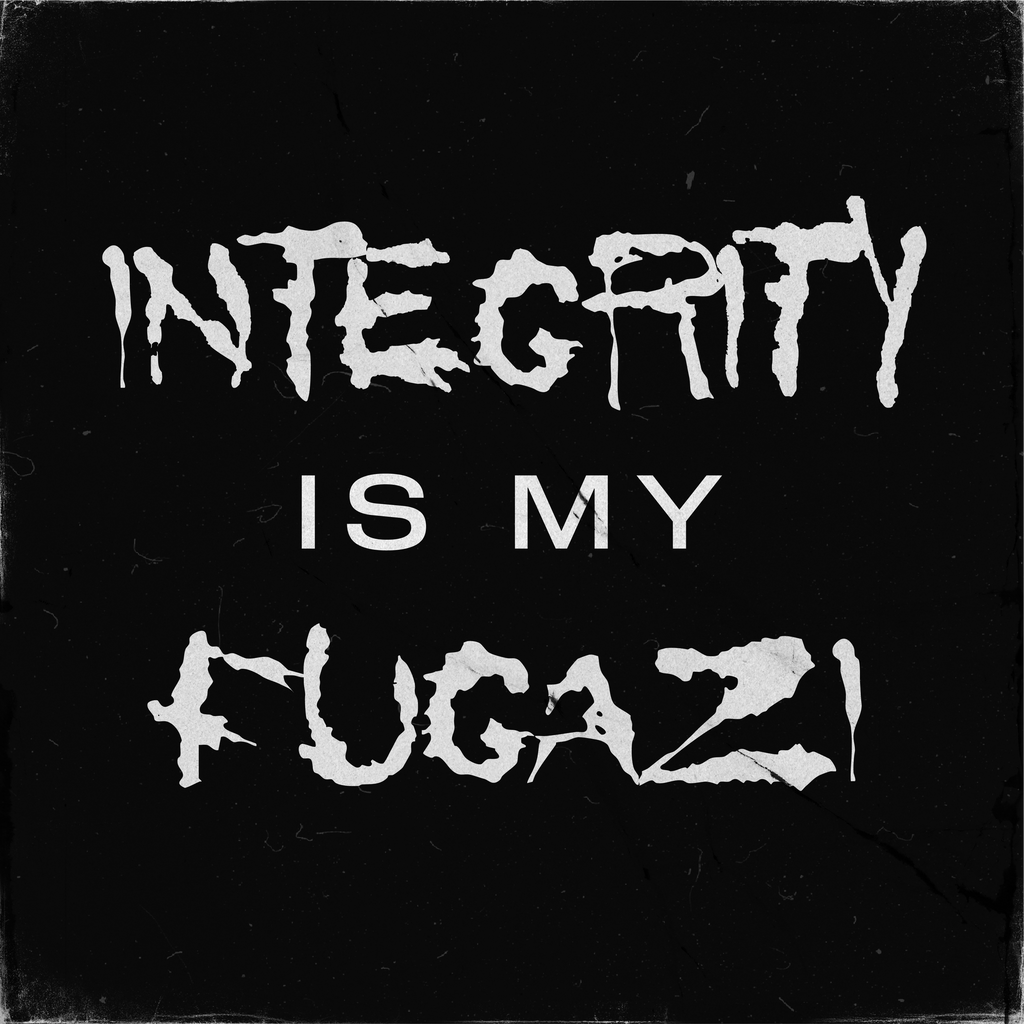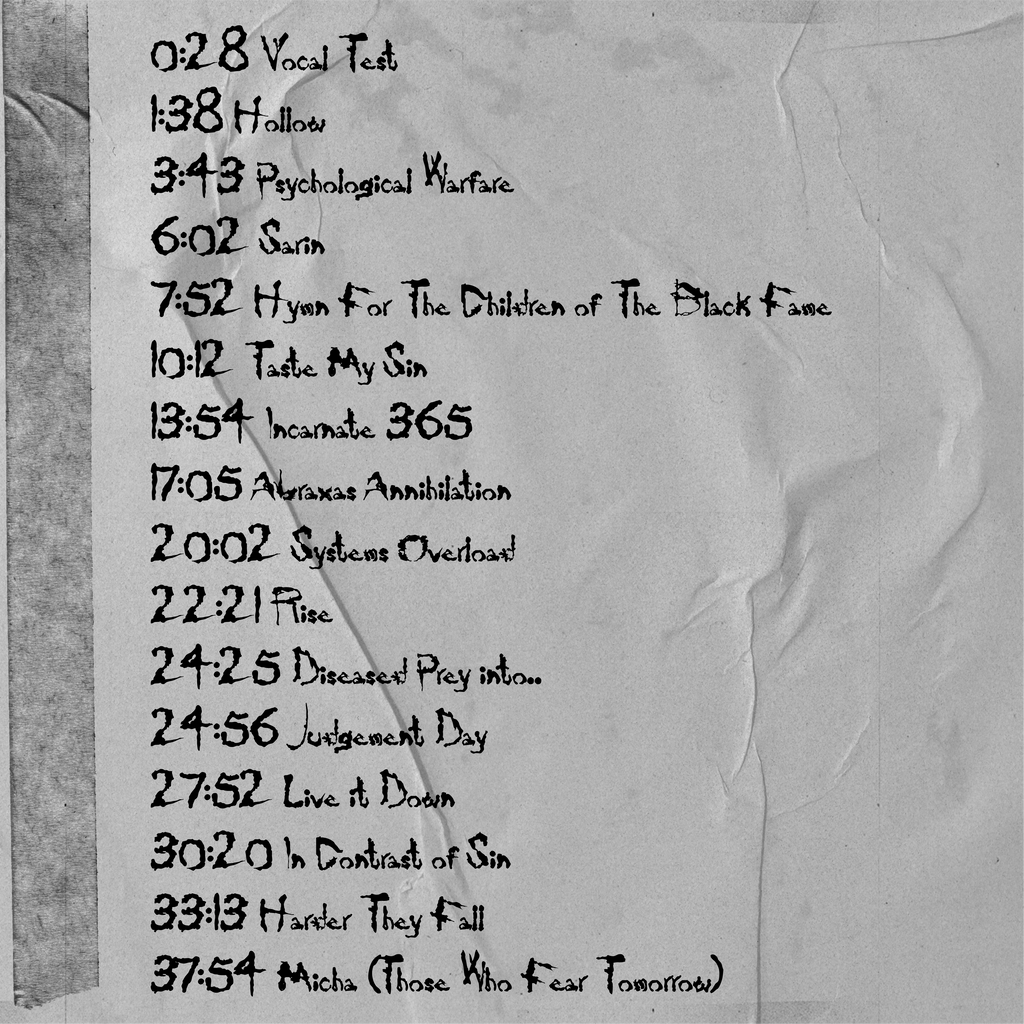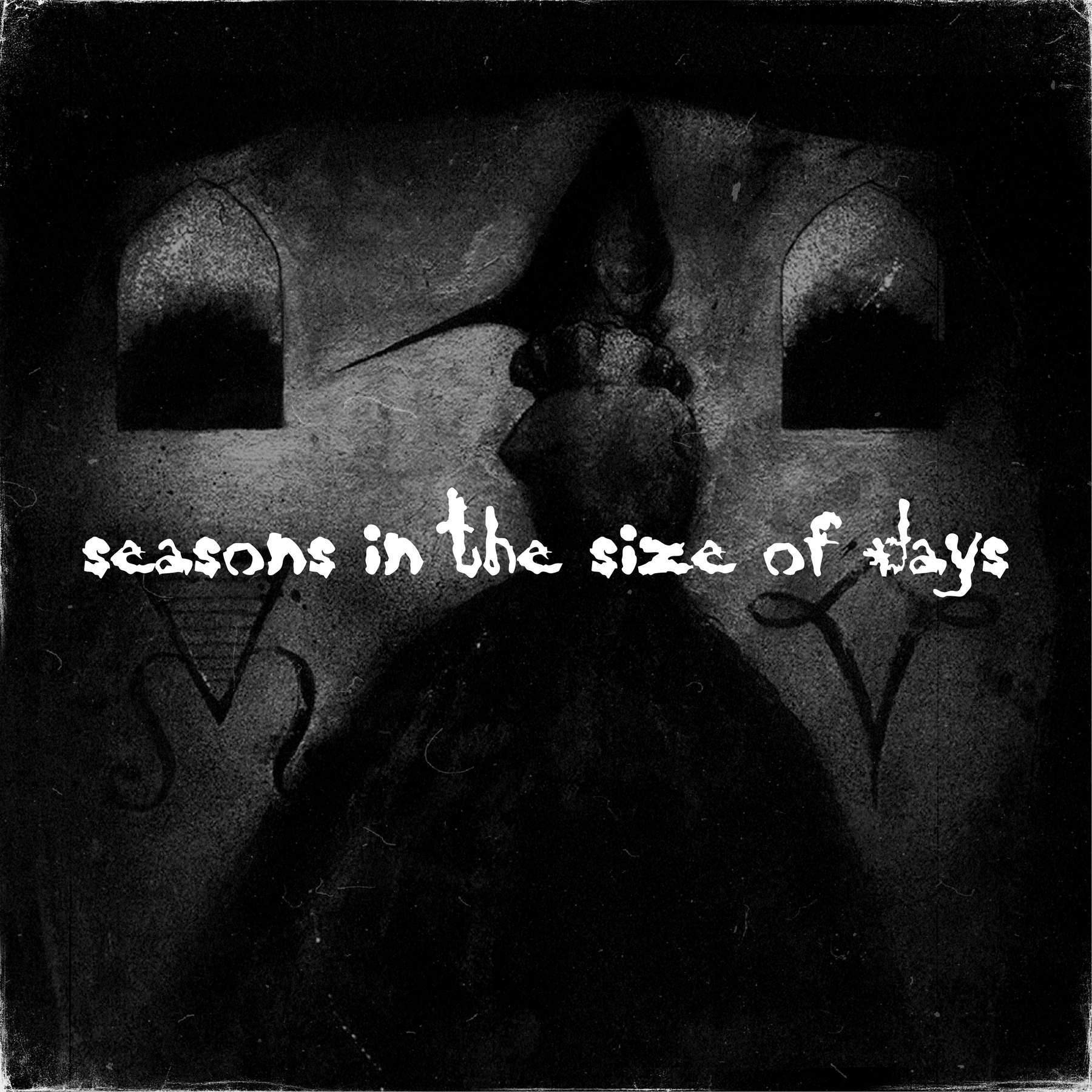
Born out of curiosity about the origins of a band logo, the Integrity typeface from Rafael Nascimento, revives the enigmatic style of an era when dry transfers and phototypesetting reigned. Through meticulous research, it was traced back to a typeface called Radical, designed by Lizabeth Brenner and released by Chartpak in 1986, a period synonymous with punk and crossover hardcore aesthetics. This font has graced the covers and zines of the hardcore music scene, eternally linked with pioneers of the genre.
Resurrecting Radical required extensive image restoration, as only a handful of reference materials existed. The digital revival of this font enriches its analog charm by offering a complete set of alternate letters and Latin diacritics, rendering it immensely versatile for modern use. Despite its heritage, Integrity is adaptable, elevating large titles and logos with its decidedly gritty flair.